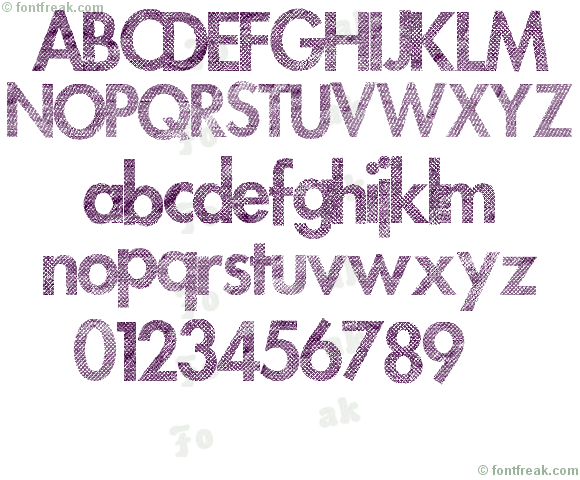
Futuremoon
Futuremoon by Xerographer Fonts is a captivating display typeface that effortlessly combines modern aesthetics with a touch of whimsy. Characterized by its unique stroke weight and a slightly textured finish, this font exudes an inviting charm that sets it apart from conventional typefaces. Its balanced contrast and thoughtful spacing enhance readability, making it suitable for various applications. The decorative elements give it a playful yet sophisticated vibe, ideal for projects seeking to make a memorable impact.
Futuremoon’s design lends itself well to a variety of creative uses. It shines in wedding invitations, where its enchanting style can beautifully convey romance and celebration. Additionally, it is an excellent choice for movie posters, where its distinctive look can capture attention and evoke emotion. Restaurant menus benefit from its inviting quality, enticing customers to explore the offerings. Content creators will find this font perfect for social media graphics, as it stands out in both digital and print formats, adding personality to any message.